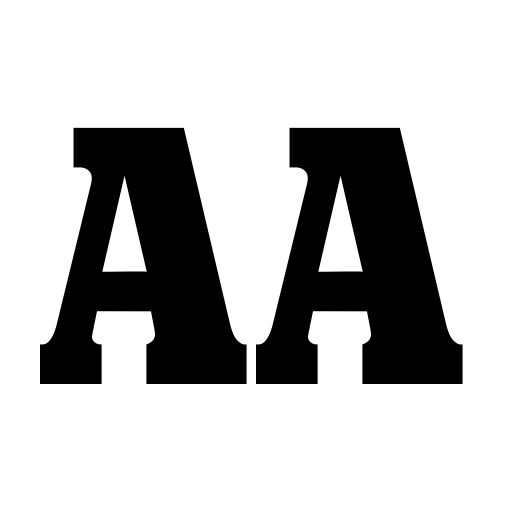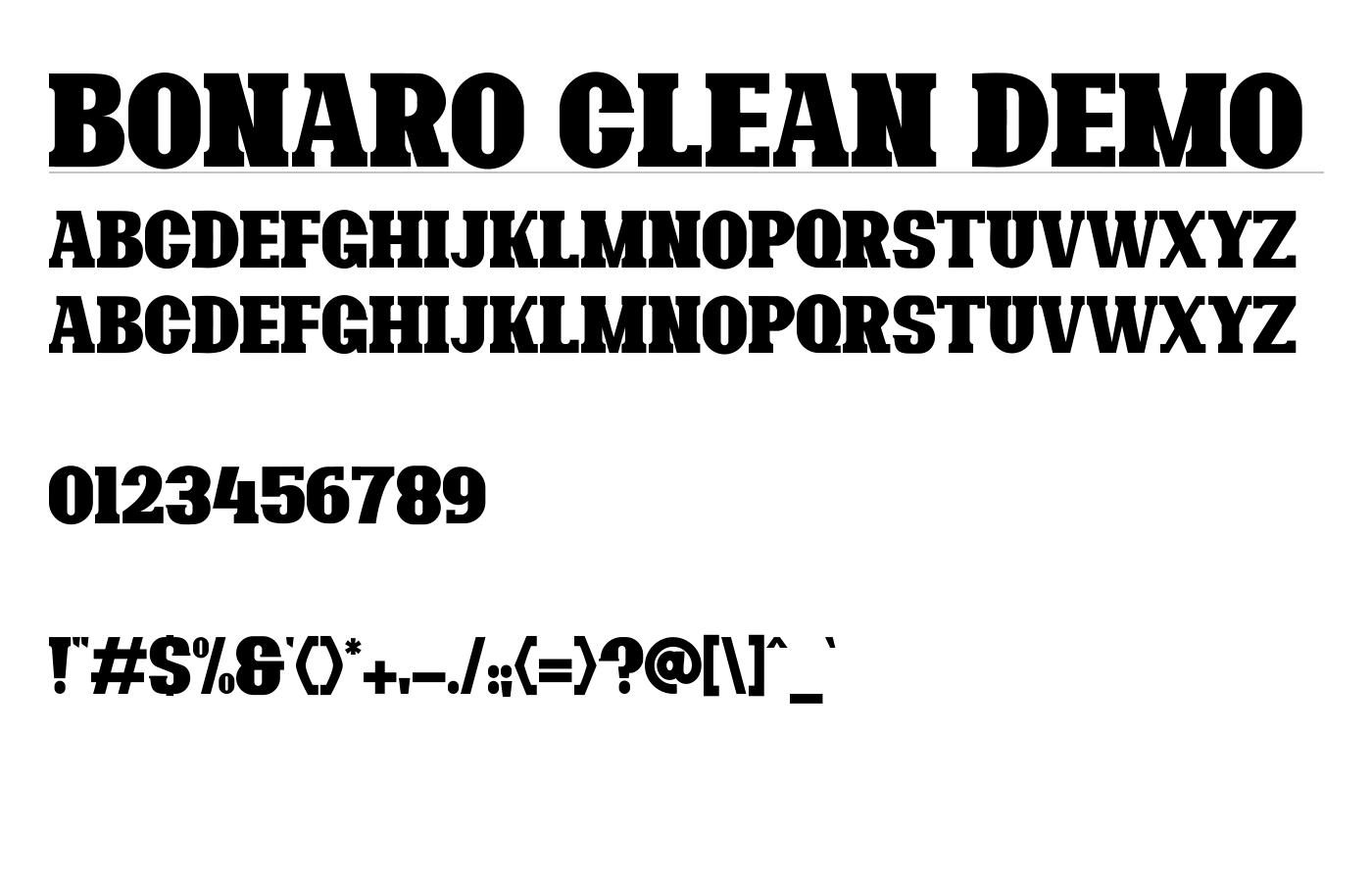
Bonaro is a bold slab serif font with strong, blocky letterforms and a high contrast between thick and thin strokes, giving it a sturdy and confident feel. Its condensed width and clean edges make it perfect for impactful headlines, logos, and branding that demand attention while maintaining a modern yet classic vibe. This font works well in contexts where a powerful presence is needed, such as posters, editorial titles, and packaging.
Bonaro Font